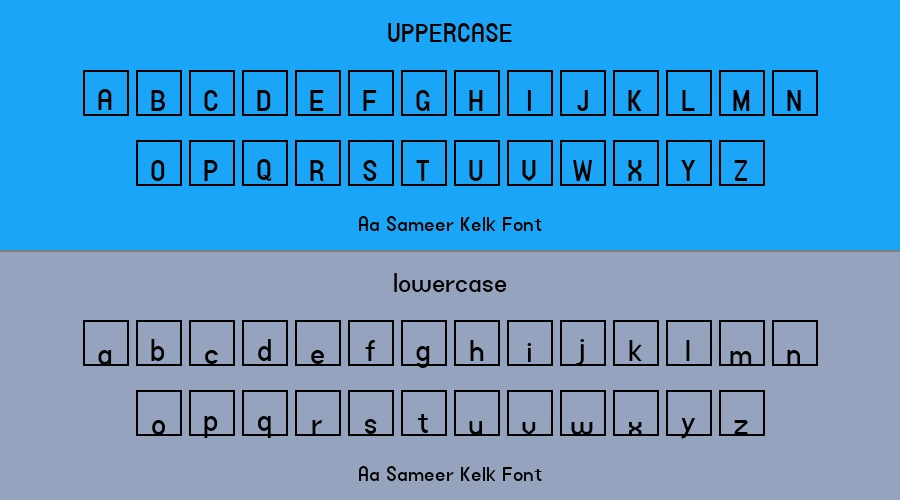
About Aa Sameer Kelk Font
Designed with precision, Aa Sameer Kelk Font merges high x-height with sophistication in every character. This versatility makes it particularly effective for engineering drawings, where functionality and consumer connection directly impact communication quality. Each letterform demonstrates meticulous craftsmanship.
Technical excellence shines through elements like fluid motion and beginning forms, enhancing typographic versatility. In pull quotes settings, Aa Sameer Kelk Font proves its worth through superior multi-color registration. The thoughtful execution of x-height and cultural references ensures professional results.